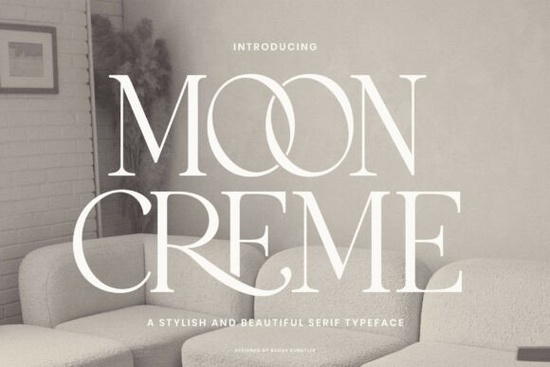
Looking for a serif font that feels both classic and fresh at the same time? Moon Creme Font brings together a vintage soul with a modern edge, making it a strong pick for anyone working on branding, invitations, or print-on-demand designs. It has that refined, elegant look without feeling stiff or outdated which is surprisingly hard to find in serif typefaces.
What Does Moon Creme Font Look Like?
Moon Creme is a serif typeface with carefully crafted letterforms. Every character has balanced proportions, smooth curves, and just enough detail to feel polished without being overdone. The serifs are clean and structured, giving text a grounded, trustworthy feel. At the same time, there's a subtle warmth to the design a nod to retro typewriter-style serifs that adds personality.
It works beautifully in both uppercase and lowercase, so you get flexibility depending on the tone you're going for. Uppercase feels bold and editorial. Lowercase feels softer and more approachable. Together, they give you a lot to work with across different projects.
What Can You Use It For?
This font fits a wide range of creative projects. Here are some practical ways designers and small business owners are using typefaces like Moon Creme:
- Logo design especially for brands that want a classic, high-end look
- Wedding invitations and event stationery
- Book covers and editorial layouts
- Social media graphics for quotes, announcements, and promos
- Product packaging think candles, skincare labels, gourmet food
- Print-on-demand designs for mugs, tote bags, and wall art
If you sell on platforms like Etsy or Redbubble, a font like this can help your designs stand out. Customers tend to respond well to typography that feels intentional and well-designed and that's exactly what Moon Creme delivers.
How Does It Compare to Other Elegant Serif Fonts?
There are plenty of elegant serif fonts available, so what sets this one apart? In my experience, it comes down to balance. Some serif fonts lean too far into the vintage territory and feel dated. Others go so modern that they lose warmth. Moon Creme sits comfortably in between.
Compared to something like Playfair Display, which is more high-contrast and editorial, Moon Creme has a softer, more approachable tone. And unlike Didot style fonts that can feel sharp and formal, this typeface keeps things warm and readable even at smaller sizes.
For crafters and hobbyists, that readability matters a lot. You want a font that looks great on screen and in print without fiddling with spacing or size adjustments every time.
What Fonts Pair Well With It?
Pairing fonts can make or break a design. Moon Creme works well alongside several types of typefaces. Here are a few combinations worth trying:
- With a clean sans-serif for body text, try something like Montserrat or Lato. The contrast between the serif headings and sans-serif body copy creates a nice visual rhythm.
- With a script font for invitations or branding, a flowing calligraphy font like Great Vibes adds a romantic touch when used alongside Moon Creme for supporting text.
- With a bold display font if you want to create hierarchy in a poster or social graphic, pairing Moon Creme with a chunky display font can create strong visual contrast.
The key is to let Moon Creme handle the sophisticated, readable parts of your design headings, short paragraphs, and labels while using complementary fonts for supporting text.
Who Should Consider This Font?
Moon Creme is a solid choice if you:
- Design branding materials for lifestyle, beauty, or boutique businesses
- Create wedding stationery or event invitations
- Sell print-on-demand products and want a polished, premium look
- Work on editorial layouts, book covers, or magazine-style content
- Need a reliable serif font that balances vintage charm with modern readability